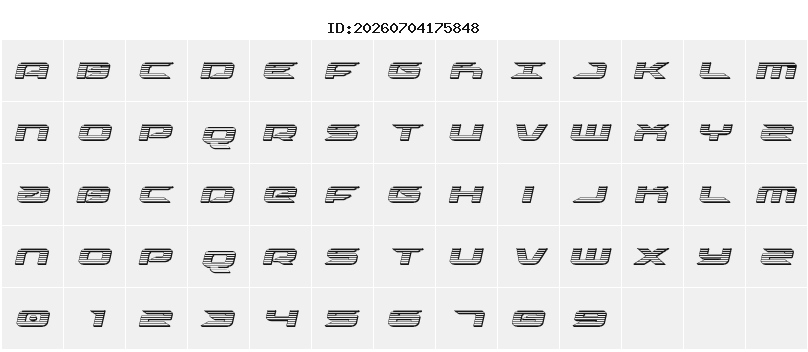
Drive Chrome Italic Preview
• Font Name: Drive Chrome Italic
• Full Font Name: Drive Chrome Italic
About Drive Chrome Italic.ttf
Drive Chrome Italic.ttf is a modern, elegant sans-serif font designed for ultimate readability and visual harmony. Perfect for branding, headlines, web design, and print materials.